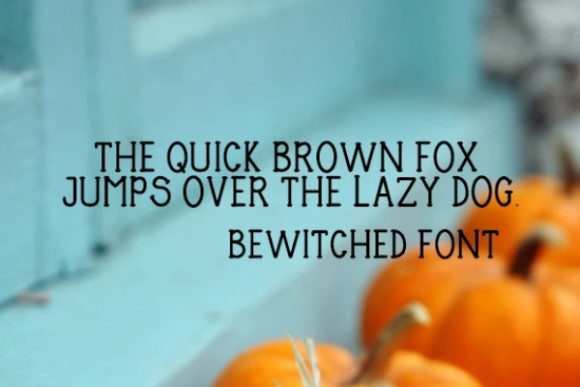
Bewitched Font: Elevate Your Designs with a Touch of Elegance
In the world of typography, a font can make or break the aesthetic of a design. For designers and crafters looking to add a touch of sophistication and elegance to their projects, the Bewitched font is an excellent choice. This modern serif font has been gaining popularity for its neat and beautiful arrangement of letters, making it perfect for both formal and non-formal designs.
What is Bewitched Font?
Bewitched is a modern serif font that boasts a unique and captivating design. Its sleek lines, balanced proportions, and exquisite details make it a standout in the world of typography. The font’s creator aimed to craft a typeface that would be both versatile and visually appealing, and they have succeeded in doing just that.
Key Features of Bewitched Font
- Modern Serif Design: Bewitched features a modern take on the classic serif font, with subtle rounded edges and refined lines that give it a fresh and contemporary feel.
- Neat and Beautiful Arrangement: The font’s letters are carefully arranged to create a harmonious and balanced look, making it perfect for designs that require a touch of elegance.
- Versatility: Bewitched is suitable for a wide range of design projects, from formal events and luxury brands to non-formal designs, such as blogs, magazines, and social media graphics.
- Easy to Read: The font’s clear and legible design ensures that your text is easy to read, even at smaller sizes.
Uses of Bewitched Font
The versatility of Bewitched font makes it an excellent choice for various design projects, including:
- Branding and Logo Design: Create a lasting impression with a custom logo that incorporates the Bewitched font, perfect for luxury brands, high-end products, and services.
- Print Design: Use Bewitched for brochures, flyers, posters, and business cards to add a touch of sophistication and elegance.
- Digital Design: Enhance your website, blog, or social media graphics with the Bewitched font, ensuring a consistent and professional look across all platforms.
- Crafting and DIY Projects: Add a personal touch to your crafting and DIY projects, such as handmade cards, gift tags, and journaling.
Tips for Using Bewitched Font
To get the most out of the Bewitched font, follow these tips:
- Pair with Other Fonts: Combine Bewitched with other fonts to create a unique and visually appealing contrast.
- Pay Attention to Kerning: Adjust the kerning to ensure that the letters are evenly spaced and visually appealing.
In conclusion, the Bewitched font is an excellent choice for designers and crafters looking to add a touch of elegance and sophistication to their projects. Its modern serif design, neat and beautiful arrangement of letters, and versatility make it perfect for both formal and non-formal designs. With its ease of use and flexibility, Bewitched is sure to become a staple in your design toolkit.
Get Ready to Cast a Spell with Bewitched Font